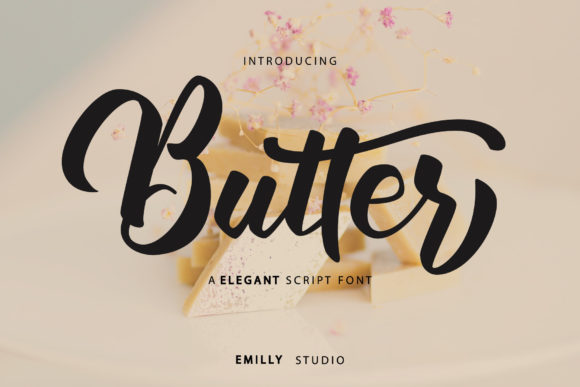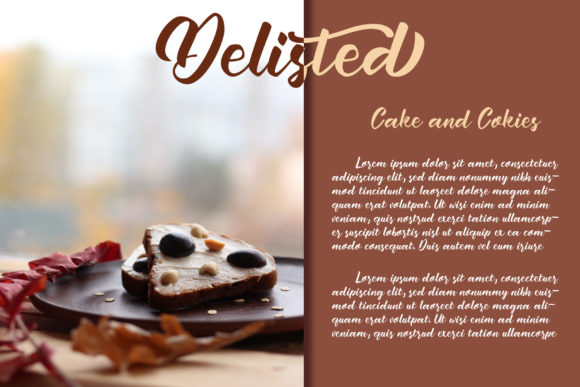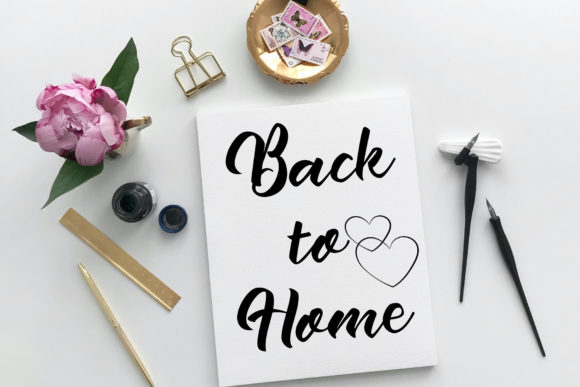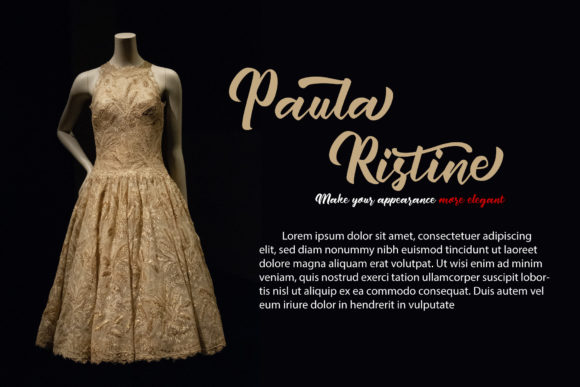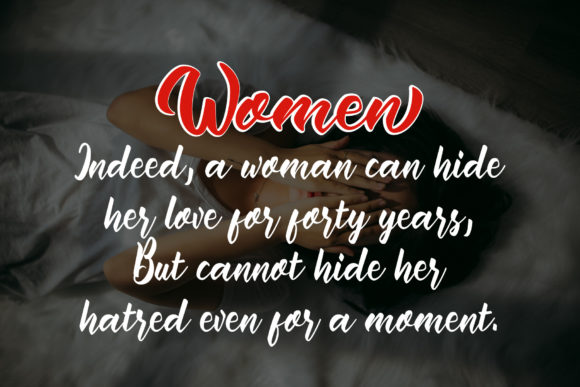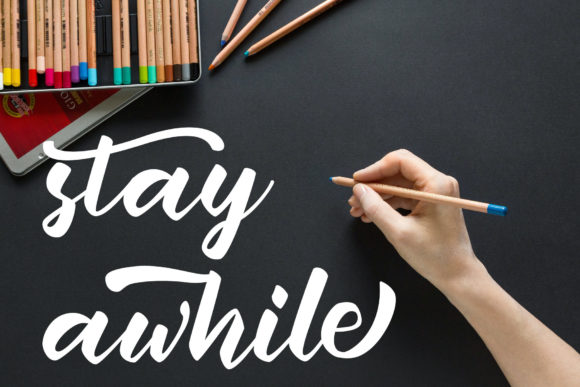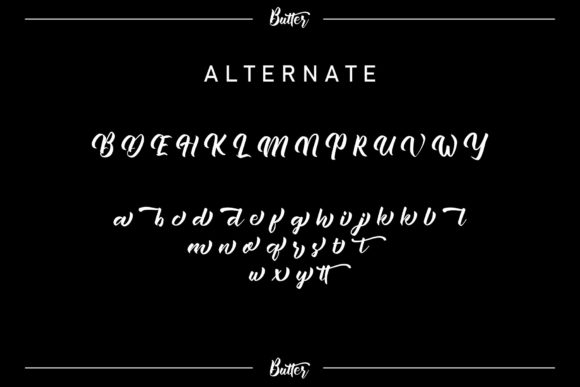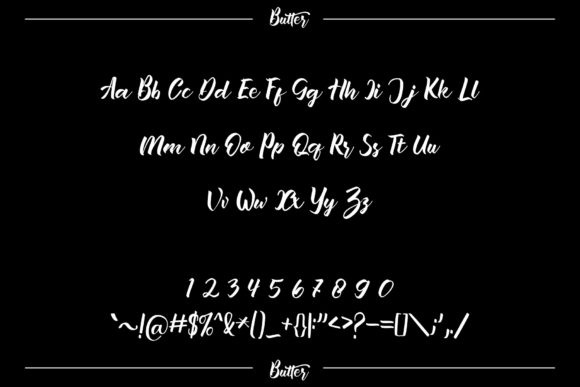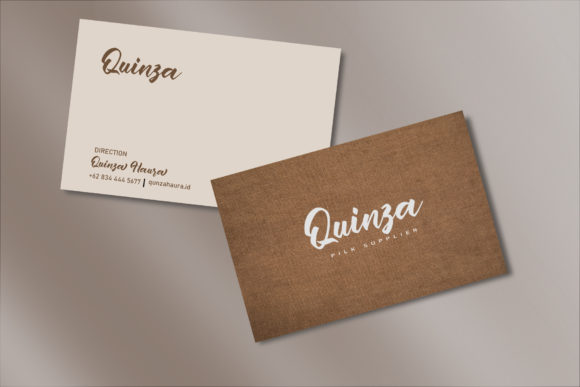
Butter Font
About Butter Font
Butter is a stylish and beautiful handwritten font. Fall in love with its ravishing style and use it to create gorgeous designs.